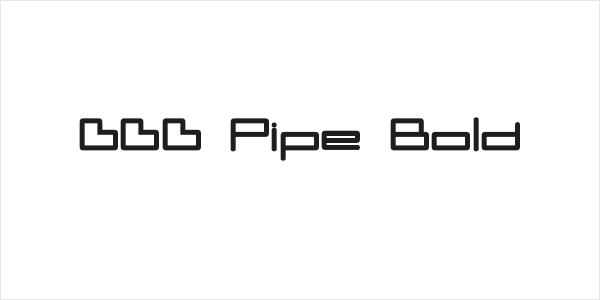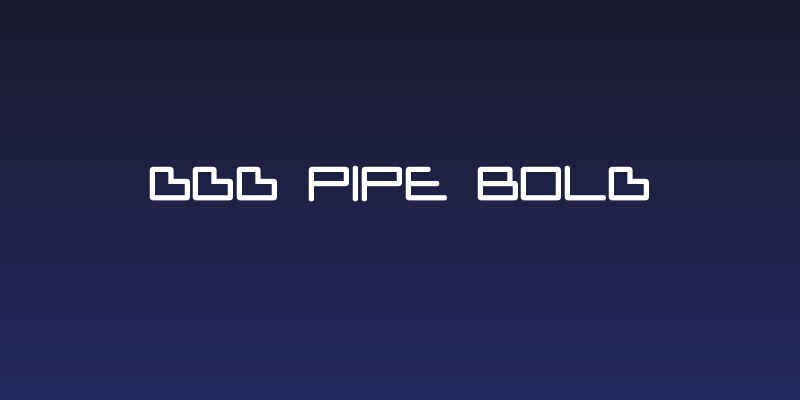
DDD Pipe Bold Font
DDD Pipe Bold Description
This font features a modern, geometric design with a distinct pipe-like appearance. Each character is constructed with uniform line thickness, creating a cohesive and structured look. The uppercase and lowercase letters maintain a consistent style, with rounded corners and a futuristic aesthetic. Numbers and special characters follow the same design principles, ensuring a harmonious overall appearance. The font's unique style makes it suitable for projects that require a contemporary and innovative touch.
| Use Case | Logos, Headlines, Digital Interfaces |
| Proposed Projects | Ideal for tech branding, digital interfaces, modern posters, and innovative product packaging. |